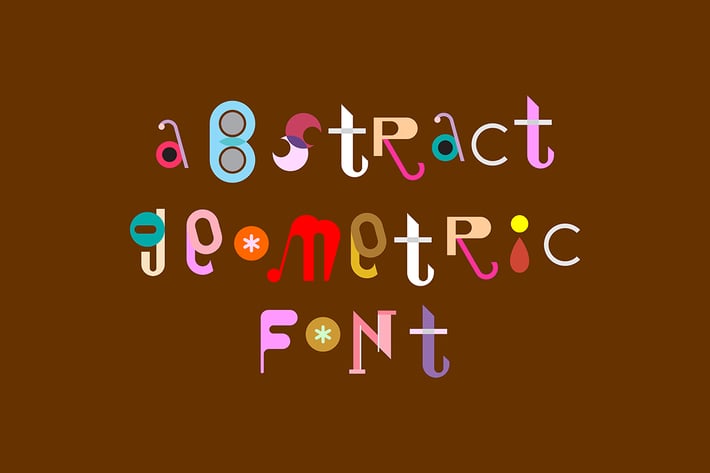
Abstract Geometric Font vector design
Colored abstract font design isolated on a brown background. Alphabet letters formed by geometric shapes. Each letter is on a separate layer.